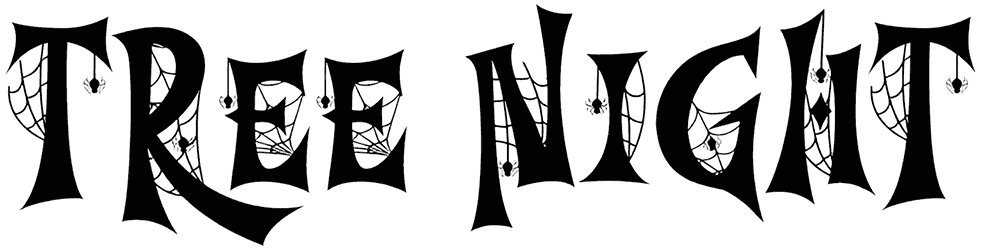
Weber Spider Font
This is exactly what happens when you let a spider feast on your words and cover the whole thing with their web. The good news is that you can turn anything into something just as creepy with our Weber Spider here. No one said this spider font is gonna be pretty tho.
You can have this nasty piece of graphics as your next lettering design for Halloween and other satanic purposes, with its capitals enveloped with many more webs compared to the lowercase.